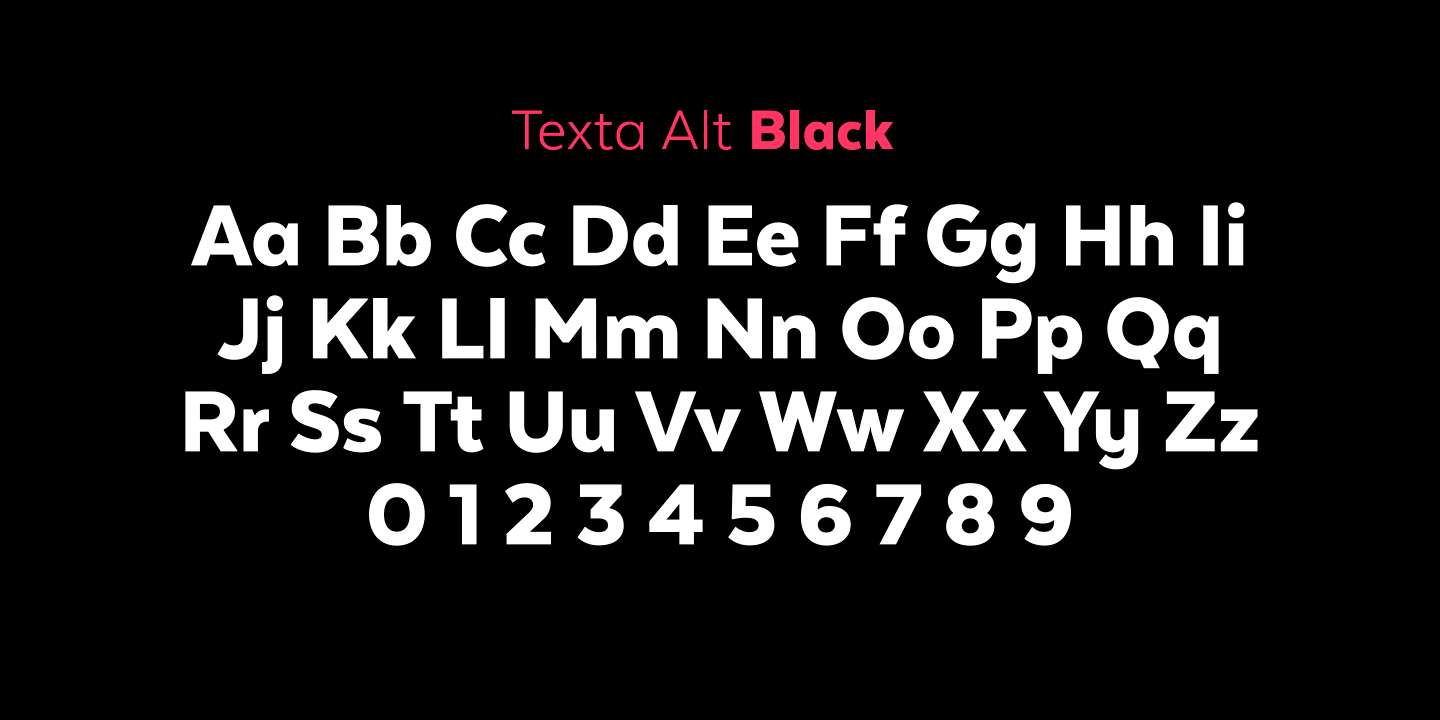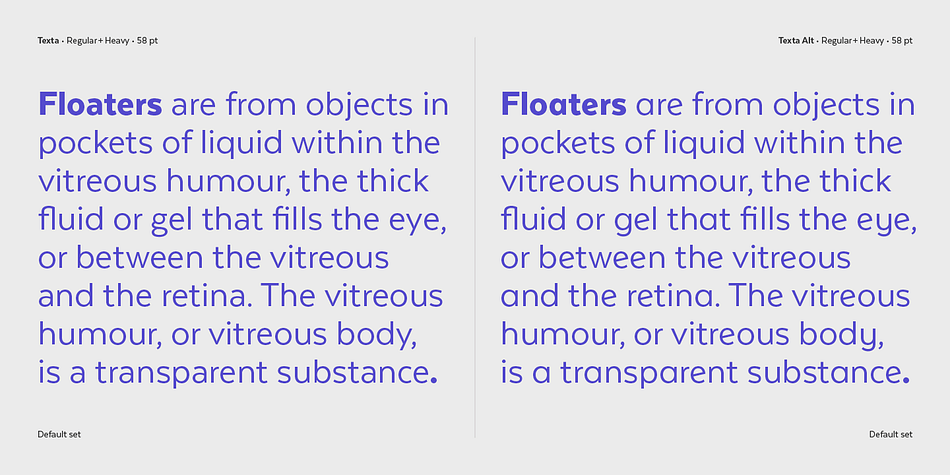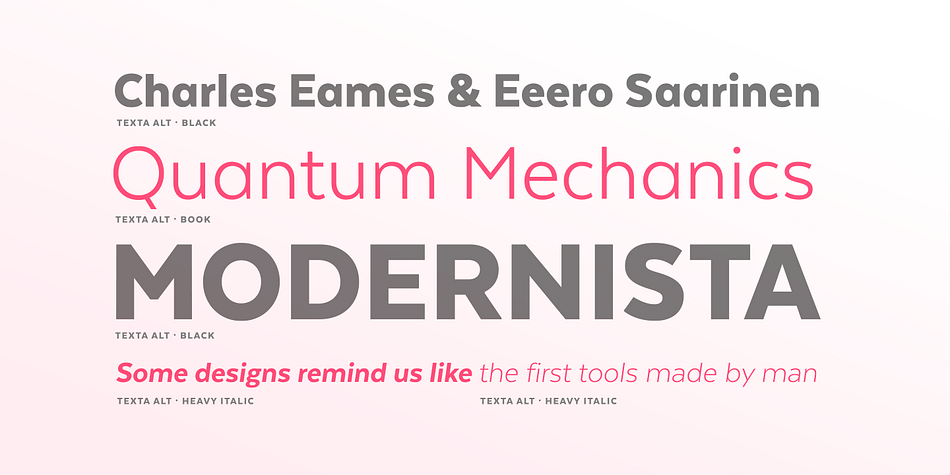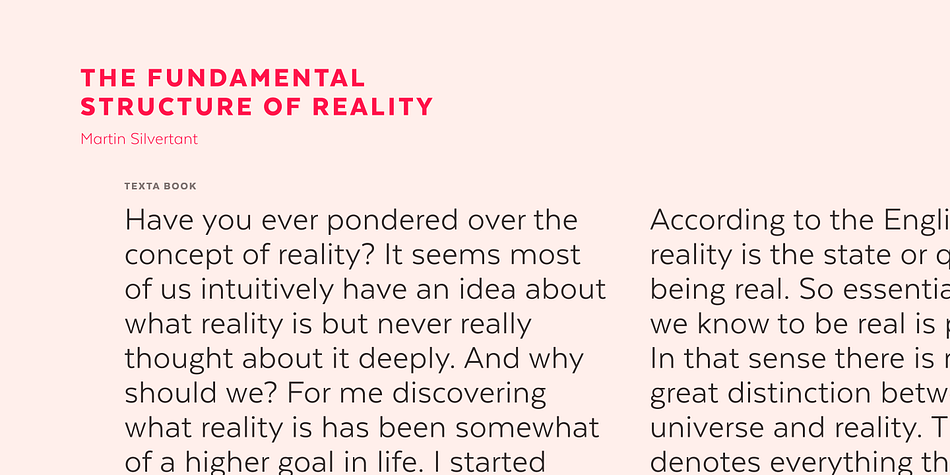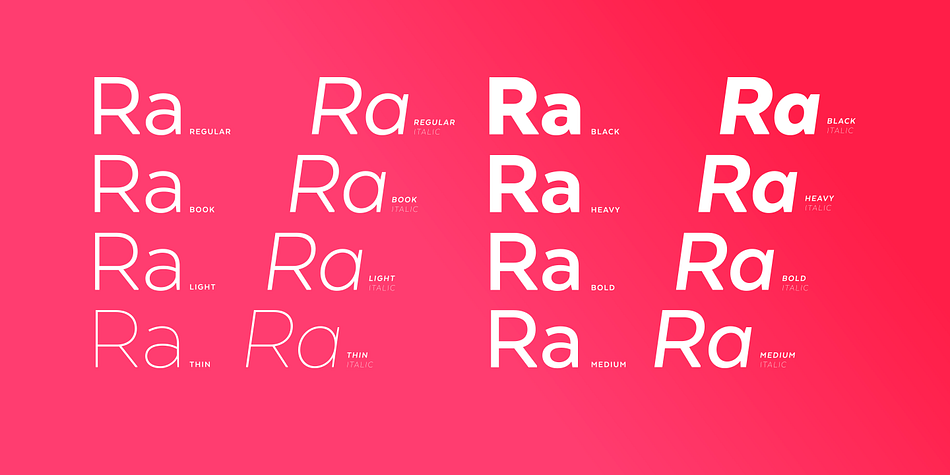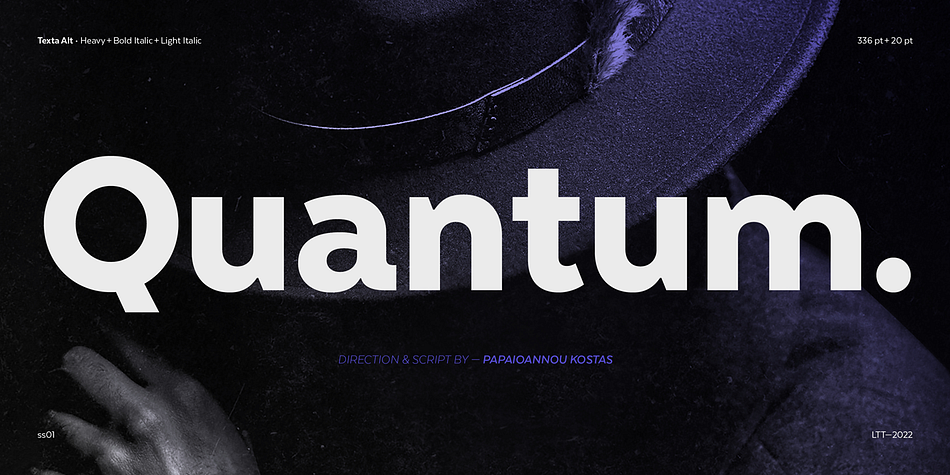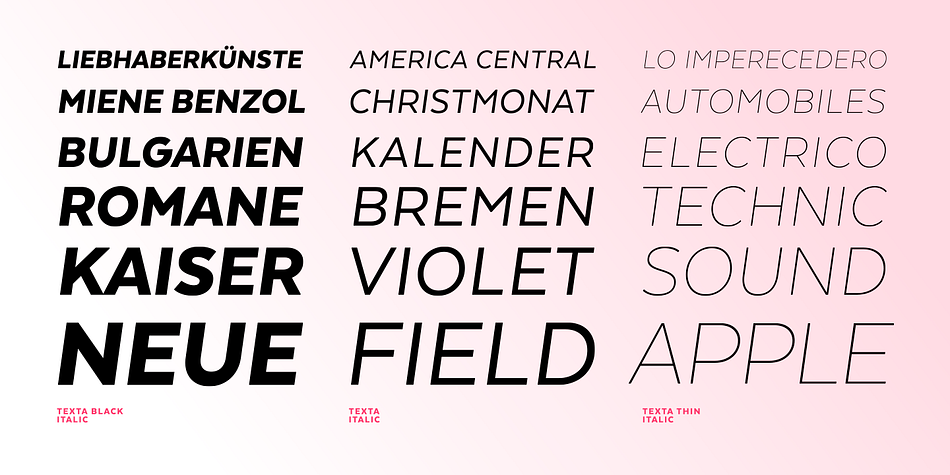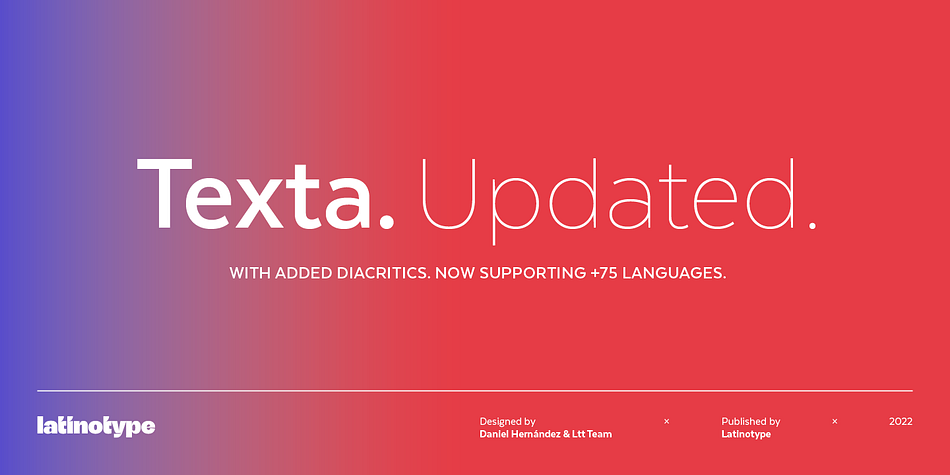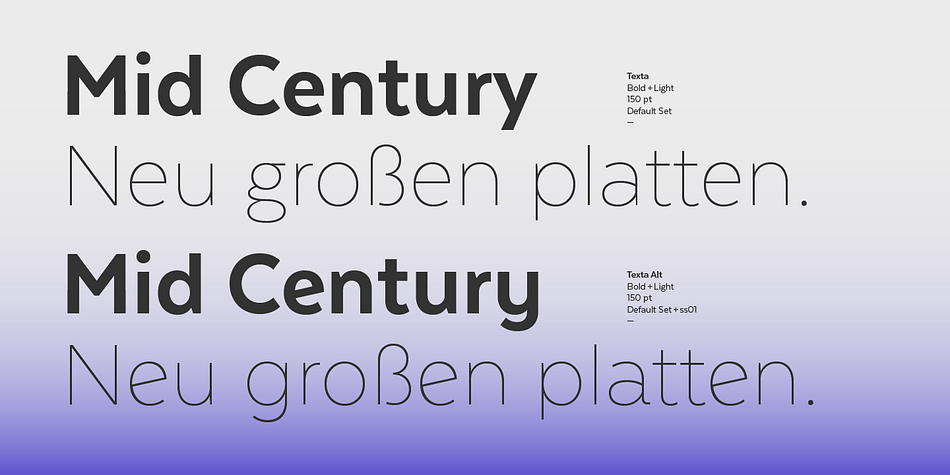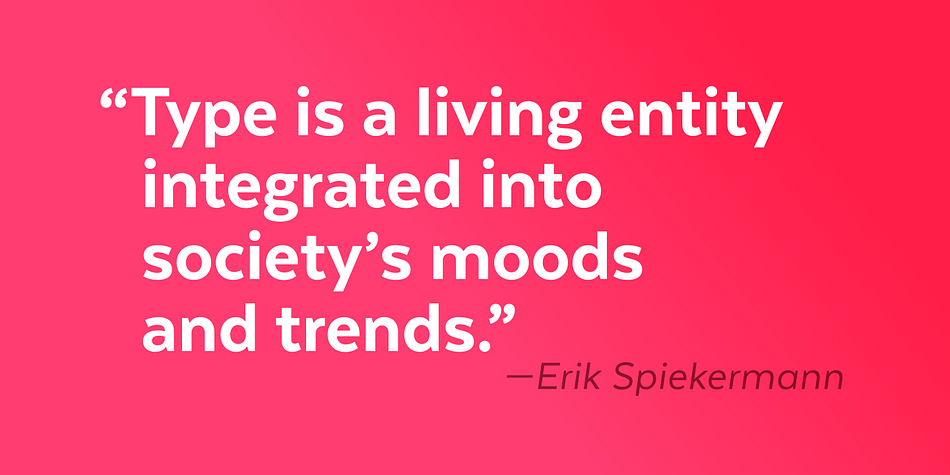
Texta is a sans serif font family. This typeface has thirty-two styles and was published by Latinotype.
Texta. A Sans for All.
Studying models from Edward Johnston to Adrian Frutiger and the Gothic alphabet sign painters bore Texta: a transparent and rational contemporary Sans useful for composing texts of all kinds.
In the Alt versions, the lowercase a, g, and y are replaced with a geometric construction for versatility in neutral compositions.